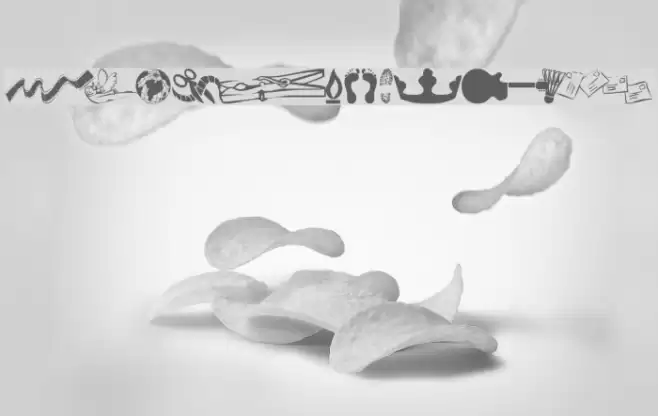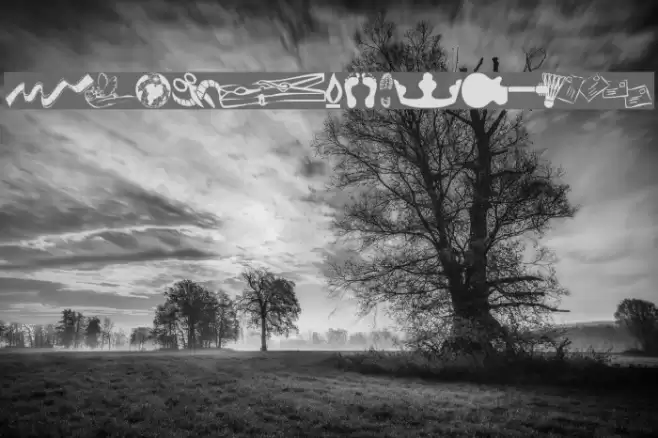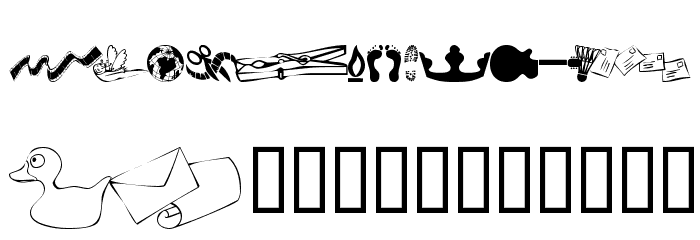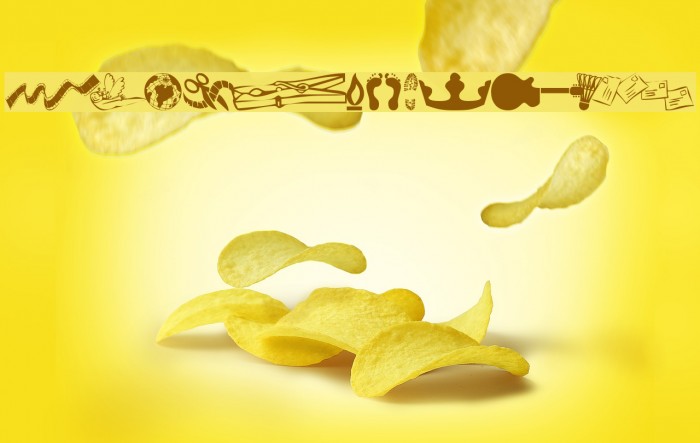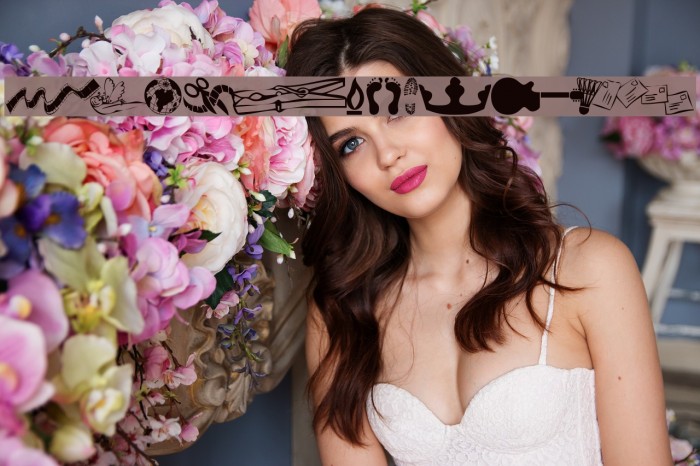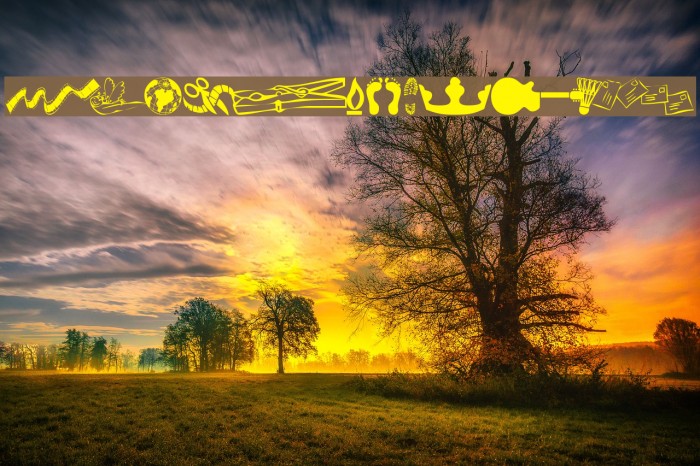
KR Katlings Eleven Font
KR Katlings Eleven Description
A whimsical decorative font featuring hand-drawn illustrations such as ducks, envelopes, crowns, footprints, and various playful objects in place of standard alphanumeric characters.
Playful, illustrated dingbat font with quirky, themed icons from Uncategorized fonts.
- Proposed Projects: Greeting cards, children's books, scrapbooking, playful invitations, themed event materials.
- Overall Style: Decorative, Whimsical, Playful
- Use Case: Illustrative accents, borders, creative projects, not for body text.